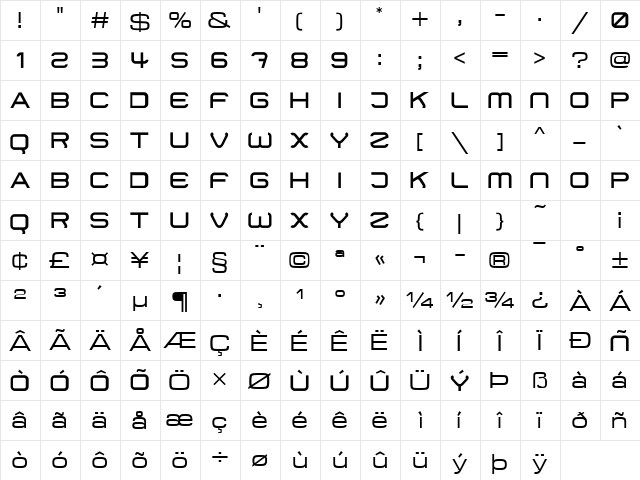
01 DigitMono Regular
| Designer | David Chung |
Design Context for 01 DigitMono Typeface
01 DigitMono channels digital-age aesthetics through its sharp, structured letterforms — ideal for brands that want to signal innovation.
Pro Tip: Try 01 DigitMono with generous letter-spacing in UI labels and navigation — the geometric forms benefit from room to breathe.